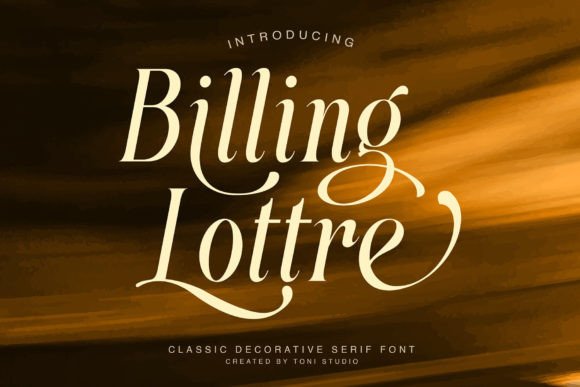
Billing Lottre Font: Elevate Your Designs with Elegance and Luxury
In the world of typography, fonts play a crucial role in conveying the tone and aesthetic of a design project. Among the numerous fonts available, Billing Lottre stands out for its beautiful typographic harmony, making it an ideal choice for a variety of design applications. This article will delve into the features and benefits of the Billing Lottre font, exploring its suitability for elegant and luxury logos, classy editorial designs, and more.
What is Billing Lottre Font?
Billing Lottre is a sophisticated font designed to offer a unique blend of elegance and luxury. Its typographic harmony makes it versatile for use in various design projects, ranging from logos and editorial designs to advertisements and packaging. The font’s classic yet modern appeal allows it to cater to a wide range of creative needs.
Key Features of Billing Lottre Font
- Elegant and Luxurious: The font exudes sophistication, making it perfect for high-end brands and luxury products.
- Typographic Harmony: Its well-crafted letters ensure a harmonious look, enhancing the overall aesthetic of any design.
- Versatile: Suitable for a variety of design projects, including logos, editorial designs, advertisements, and more.
- Classic yet Modern: Offers a timeless appeal with a contemporary touch, making it relevant for both traditional and modern designs.
Use Cases for Billing Lottre Font
The versatility of Billing Lottre font makes it an excellent choice for numerous design applications. Here are some of the ideal use cases:
1. Elegant & Luxury Logos
For brands aiming to establish a luxurious image, Billing Lottre font offers the perfect solution. Its elegant strokes and sophisticated look make it suitable for high-end brands in sectors such as fashion, cosmetics, and premium products.
2. Classy Editorial Designs
Editorial designs, including magazines and newspapers, require a font that can convey elegance and readability. Billing Lottre’s typographic harmony ensures that the content is not only visually appealing but also easy to read, making it ideal for classy editorial designs.
3. Women’s Magazines
Women’s magazines often focus on fashion, beauty, and lifestyle. Billing Lottre font, with its elegant and modern appeal, can enhance the aesthetic of such publications, making them more engaging for the target audience.
4. Fashion Brands
Fashion brands require fonts that can reflect their style and sophistication. Billing Lottre, with its luxurious appeal, is perfect for fashion brands looking to make a statement with their typography.
5. Cosmetic Brands
The cosmetic industry is highly competitive, and branding plays a crucial role. Billing Lottre font can help cosmetic brands stand out with its elegant and sophisticated look, appealing to customers seeking premium products.
6. Fashion Promotions
Fashion promotions, including flyers, posters, and digital ads, require fonts that can capture attention and convey luxury. Billing Lottre font is an excellent choice for such promotional materials, ensuring they look high-end and appealing.
7. Modern Advertising Designs
In modern advertising, the visual appeal is as important as the message. Billing Lottre font, with its harmonious typography and elegant look, can enhance advertising designs, making them more effective.
8. Invitation Cards
Invitation cards for special events, such as weddings and galas, require a font that can convey elegance and sophistication. Billing Lottre font is perfect for such occasions, ensuring the invitations look luxurious and memorable.
9. Art Quotes
For art-related projects, including quotes and posters, Billing Lottre font offers a stylish and sophisticated look. Its elegant typography can enhance the visual appeal of art quotes, making them stand out.
10. Home Deco
In home decor designs, typography can play a significant role in setting the tone. Billing Lottre font, with its classic yet modern appeal, can complement various home decor styles, adding an elegant touch.
11. Book Titles/Covers
For book titles and covers, a font that can convey the book’s genre and tone is essential. Billing Lottre font is suitable for a wide range of genres, especially those that require an elegant and sophisticated look.
12. Special Events
Special events, including galas, exhibitions, and launches, require promotional materials that can convey luxury and elegance. Billing Lottre font is an excellent choice for such events, ensuring the promotional materials look high-end.
13. Tote Bags
Tote bags are popular promotional items for brands. With Billing Lottre font, brands can create stylish and sophisticated designs for their tote bags, enhancing their brand image.
14. Advertisements
In advertisements, capturing the audience’s attention is crucial. Billing Lottre font, with its elegant and luxurious appeal, can help create visually appealing ads that stand out.
Whether you’re a designer, brand owner, or simply someone who appreciates beautiful typography, Billing Lottre font is worth exploring. Elevate your designs with elegance and luxury – choose Billing Lottre font for your next project.